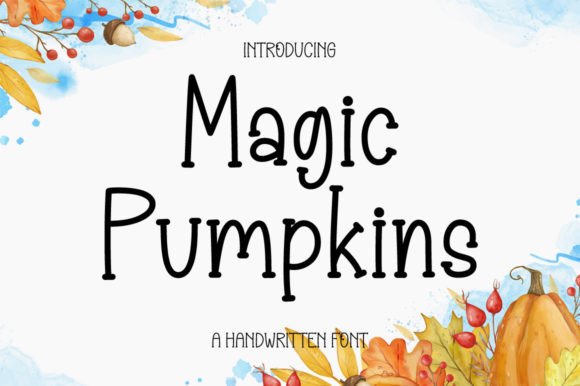
Introducing Magic Pumpkins Font, the perfect choice to capture the charm and simplicity of your design dreams. This display font, crafted by Graphix Line Studio, is a handwritten masterpiece that effortlessly adds a touch of warmth and authenticity to your projects.
With its adorable letterforms and playful charm, Magic Pumpkins Font is an ideal companion for a wide range of creative endeavors. From heartfelt invitations to playful branding, this font brings a sense of whimsy and character that resonates with audiences. As the ultimate font for creating simple logos, Magic Pumpkins Font captivates with its ability to convey messages with clarity and a hint of playfulness. Its unique style effortlessly elevates your designs and captures the attention of viewers with its distinct personality.
Imagine the delight of your audience as they encounter your designs adorned with Magic Pumpkins Font. Its friendly and inviting nature establishes an instant connection, leaving a lasting impression that sets your work apart. The beauty of this font lies in its versatility, seamlessly adapting to diverse design styles and themes. Whether you're crafting cozy greeting cards, whimsical posters, or eye-catching social media graphics, Magic Pumpkins Font becomes an integral part of your creative vision, adding a touch of magic to every project.
So, embrace the enchanting world of Magic Pumpkins Font and let your creativity flourish. Experience the joy of crafting designs that captivate and inspire, all while immersing yourself in the charm of this remarkable font. Let Magic Pumpkins Font become your trusted companion in the journey of creating designs that truly resonate with the hearts of your audience.